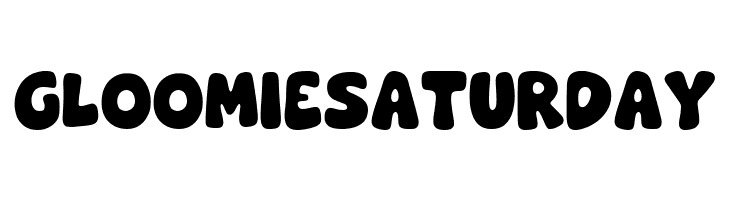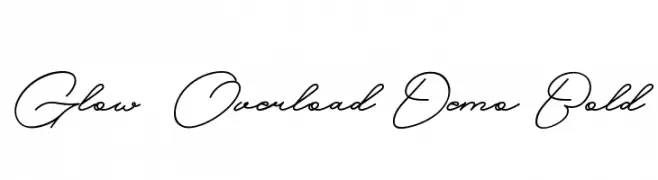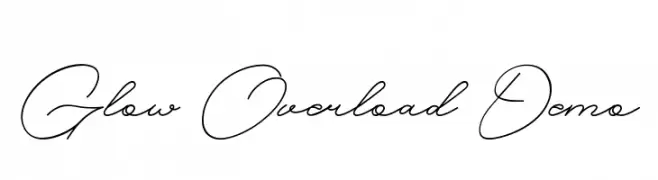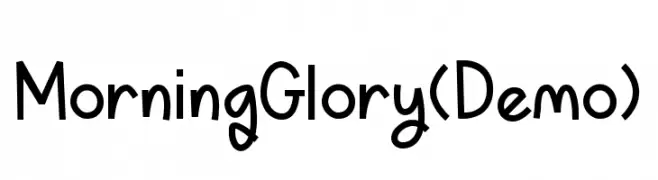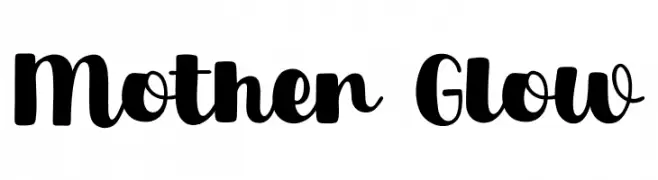
A playful, handwritten font with a whimsical and friendly style.
A bold, playful font with rounded edges and a bubbly, whimsical style.
An elegant, flowing script font with smooth, cursive letterforms.
A fluid, cursive script font with elegant, flowing lines.
A bold, energetic script font with a handwritten feel.
A bold, playful script font with a modern, energetic style.
A graceful script font with flowing, connected strokes and elegant curves.
A cursive, handwritten font with elegant, flowing characters and bold lowercase letters.
A bold, decorative font with flame motifs extending from the top of each character.
A casual, handwritten-style font with smooth, flowing curves.